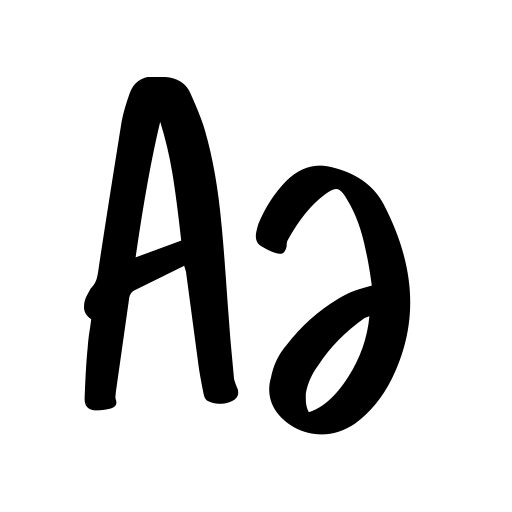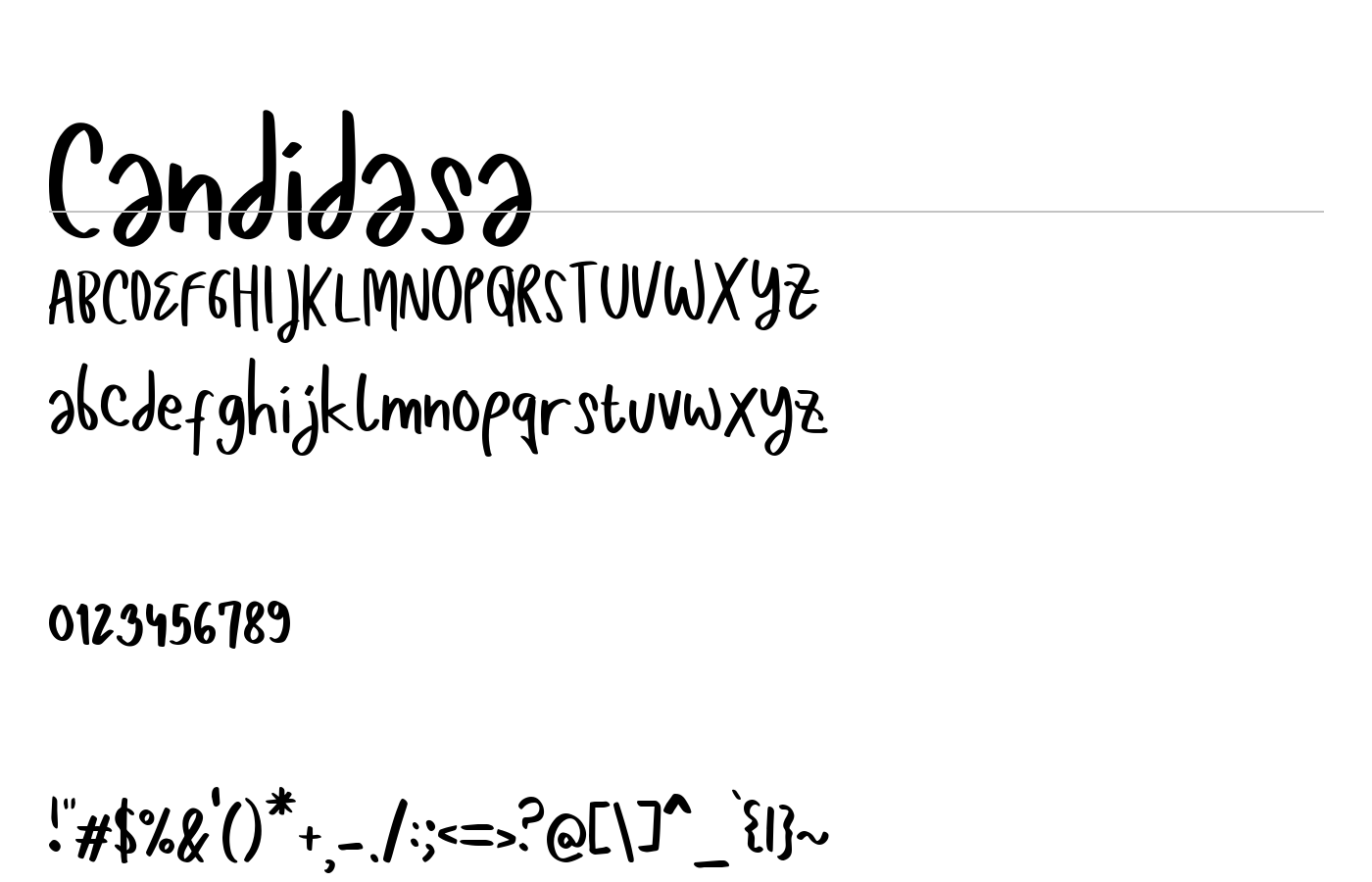
Candidasa is a playful and casual handwritten font with an irregular, organic feel and lively character shapes. Its tall, narrow letters with uneven strokes create a friendly and approachable vibe, making it ideal for creative projects, informal branding, and fun editorial designs. This font works well in headlines, invitations, and any design seeking a personal, charming touch.
Candidasa Font
About Candidasa Font
| Font family | Candidasa Font |
| Designer | Arini Hanindhar Putri |